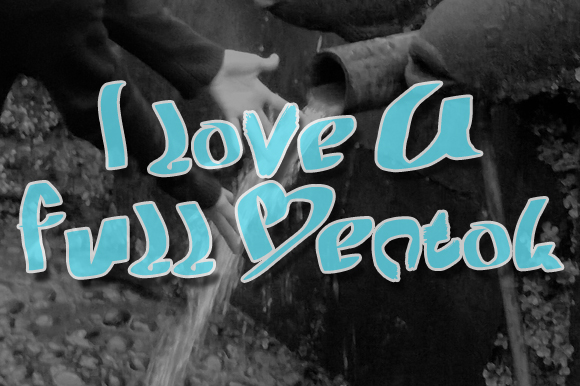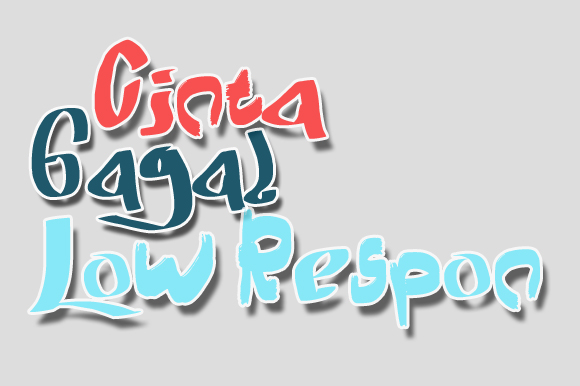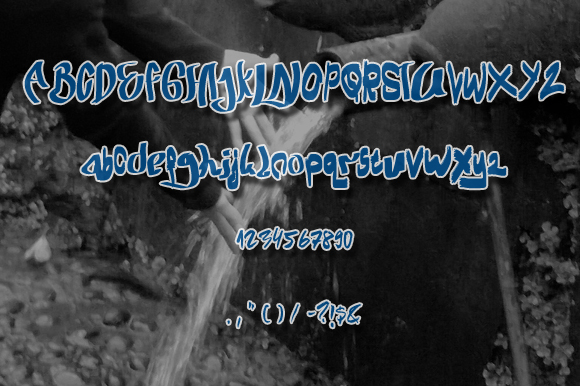
Introduction to Kalliadem Font
Have you ever stared at a blank canvas, struggling to find the perfect words to bring your creative vision to life? You’re not alone. Many designers face this challenge, and it’s where the right font can make all the difference. For those seeking a stylish and modern touch, the Kalliadem Font is an excellent choice.
This high-quality design resource offers a unique blend of sophistication and elegance, making it perfect for a wide range of creative projects. Whether you’re working on a logo, a brochure, or a social media campaign, the Kalliadem Font is sure to elevate your design and leave a lasting impression.
Key Features of Kalliadem Font
- The Kalliadem Font is a high-quality design resource ideal for creative projects, offering a unique and elegant touch.
- With its transparent background, this font can be easily layered over images or other design elements, providing endless creative possibilities.
- The Kalliadem Font is designed to be highly legible, even at small font sizes, making it perfect for a wide range of design applications.
- The font is available in multiple weights and styles, allowing designers to choose the perfect version to suit their creative project’s needs.
- Kalliadem Font is designed to be scalable, ensuring that it retains its high quality and clarity at various resolutions, from 72 dpi to 300 dpi.
Honest Review: Kalliadem Font
I recently had the opportunity to work with the Kalliadem Font, and I must say, it’s been a game-changer for my creative projects. The high quality and unique design make it a valuable addition to any design resource collection.
- ✨ Clear and transparent background, making it easy to work with
- ✨ Versatile font that can be used in a variety of design contexts
- ⚠️ Limited font sizes and styles, which may not be ideal for more complex projects
Overall, I’m impressed with the Kalliadem Font and would recommend it to designers looking for a unique and high-quality design resource. While it may have some limitations, its strengths make it a valuable addition to any design collection.
Tips for Getting the Most Out of the Kalliadem Font
For the best results, use the Kalliadem Font in conjunction with other high-quality design elements. Experiment with different font sizes, colors, and styles to create a unique and visually appealing design. The Kalliadem Font is ideal for creative projects, such as posters, flyers, and social media graphics.
The Kalliadem Font is commonly used in a variety of design projects, including:
- Posters and flyers
- Business cards and brochures
- Presentations and reports